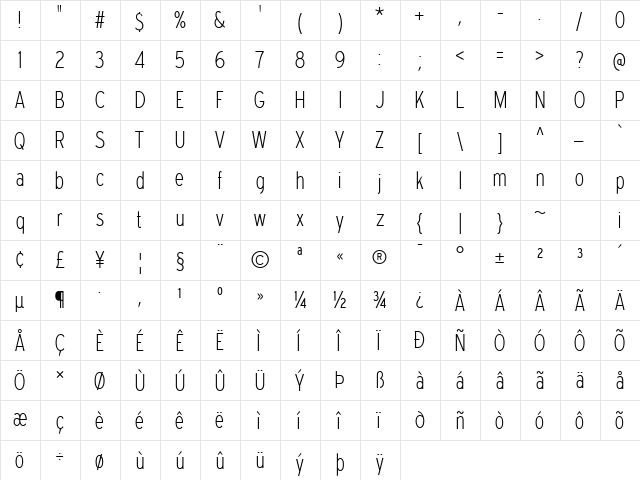
Expressway Condensed ExtraLight
Design Context for Expressway Typeface
Expressway is a composed and adaptable typeface that performs quietly and consistently across a wide range of design contexts. The delicate stroke weight brings airiness and refinement to layouts. The condensed width makes it efficient for tight spaces without sacrificing legibility.